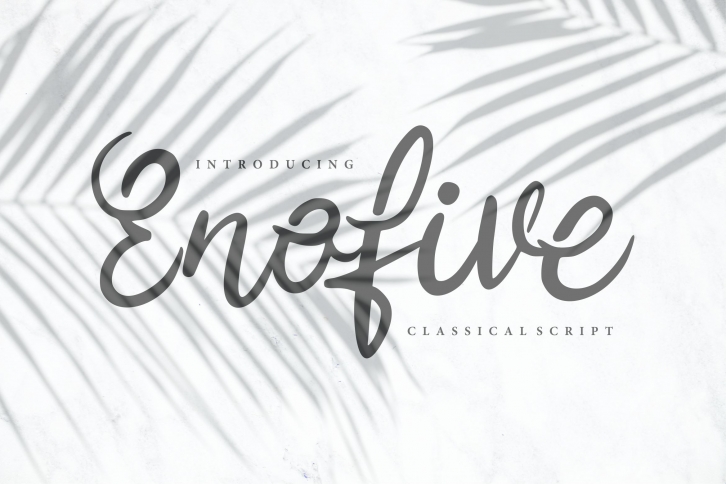
Enofive | Classical Script Font Download
Enofive is a beautiful font that was designed by Vunira. It's a great choice for designers and creatives who need such a font. It was released on October 25, 2019 and the file size is 11.49 MB. Enofive may give a more youthful, expressive and casual look to your project. It is a very beautiful, refined, elegant, and high-quality font.